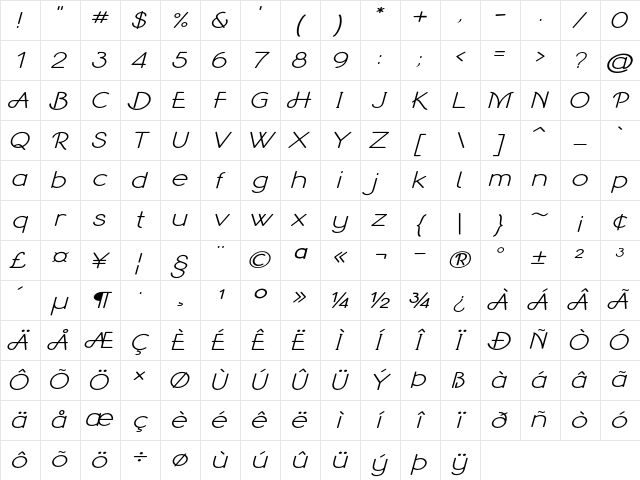
Lollipop Expanded Italic
Complete Lollipop Expanded Italic glyph index. Displaying only characters natively supported by Lollipop Expanded Italic font.
Design Context for Lollipop
Lollipop is a composed and adaptable typeface that performs quietly and consistently across a wide range of design contexts. The slanted form adds forward momentum and visual energy.